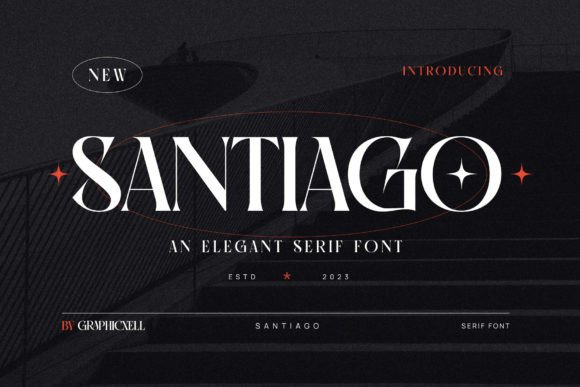
Step into the world of sophistication and elegance with Santiago Font, a masterful creation by Graphicxell. Santiago Font is not just a font; it's an experience that will transform your designs into works of art. Its unique serif structure is a harmonious blend of classic and contemporary elements, making it the perfect choice for those seeking a timeless and versatile font.
Visualize your business letterheads adorned with the exquisite strokes of Santiago Font. Its carefully crafted glyphs dance across the page, exuding an aura of professionalism and confidence. Each letter is a testament to the attention to detail and the dedication poured into its creation. Your business correspondence will carry an air of distinction, leaving a lasting impression on clients and associates alike.
Santiago Font's charm extends beyond business documents. Its versatility makes it an ideal companion for a multitude of creative projects. Envision your wedding invitations, social media posts, advertisements, and product packaging elevated to new heights of elegance. The intricate details of Santiago Font will add a touch of sophistication to any design, capturing the attention of your audience and leaving them spellbound.
The beauty of Santiago Font lies in its adaptability. Whether you're designing labels, photography watermarks, or eye-catching stationery, it seamlessly adapts to your vision. Its timeless appeal transcends trends, ensuring that your designs remain relevant and captivating for years to come. Immerse yourself in the world of Santiago Font and discover the boundless possibilities it offers. Let your creativity soar as you explore the endless applications of this remarkable font.
Santiago Font is more than just a font; it's an investment in your brand's identity. Its timeless elegance will elevate your designs, leaving a lasting impression on your audience. Embrace the sophistication of Santiago Font and embark on a creative journey that will redefine your design aesthetic. Experience the difference that a truly exceptional font can make.